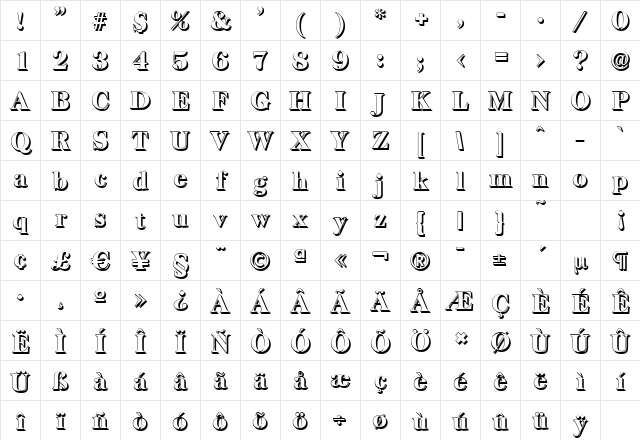
Complete BaskervilleShadow-Heavy Regular glyph index. Displaying only characters natively supported by BaskervilleShadow-Heavy Regular font.
BaskervilleShadow-Heavy is built around its visual character rather than neutral utility - its distinctive forms are designed to make an impression at display sizes.
Font Pairing: Pair with a clean neutral sans-serif for body copy to let BaskervilleShadow-Heavy's character lead without overwhelming the composition.
Pro Tip: Use BaskervilleShadow-Heavy exclusively at display sizes - it was designed to be seen, not read at length. Let a neutral companion handle body copy.